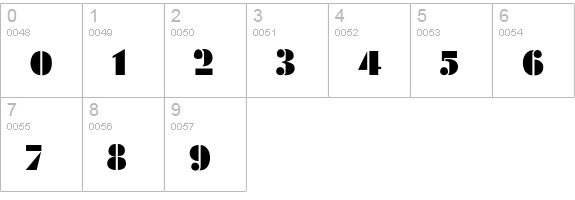
Futura_Poster-L Font Details
Futura_Poster-L font is a sleek and modern typeface that exudes sophistication and elegance. With its clean lines and geometric shapes, this font is perfect for creating eye-catching posters, banners, and advertisements. The bold and stylish design of Futura_Poster-L font makes it ideal for making a statement and grabbing the attention of your audience. What's even better is that Futura_Poster-L font is available for free download at FontsMarket.com. This means that you can easily access this versatile font and use it in your design projects without any cost. Don't miss out on the opportunity to enhance your creations with the timeless appeal of Futura_Poster-L font. Download it now and take your designs to the next level!